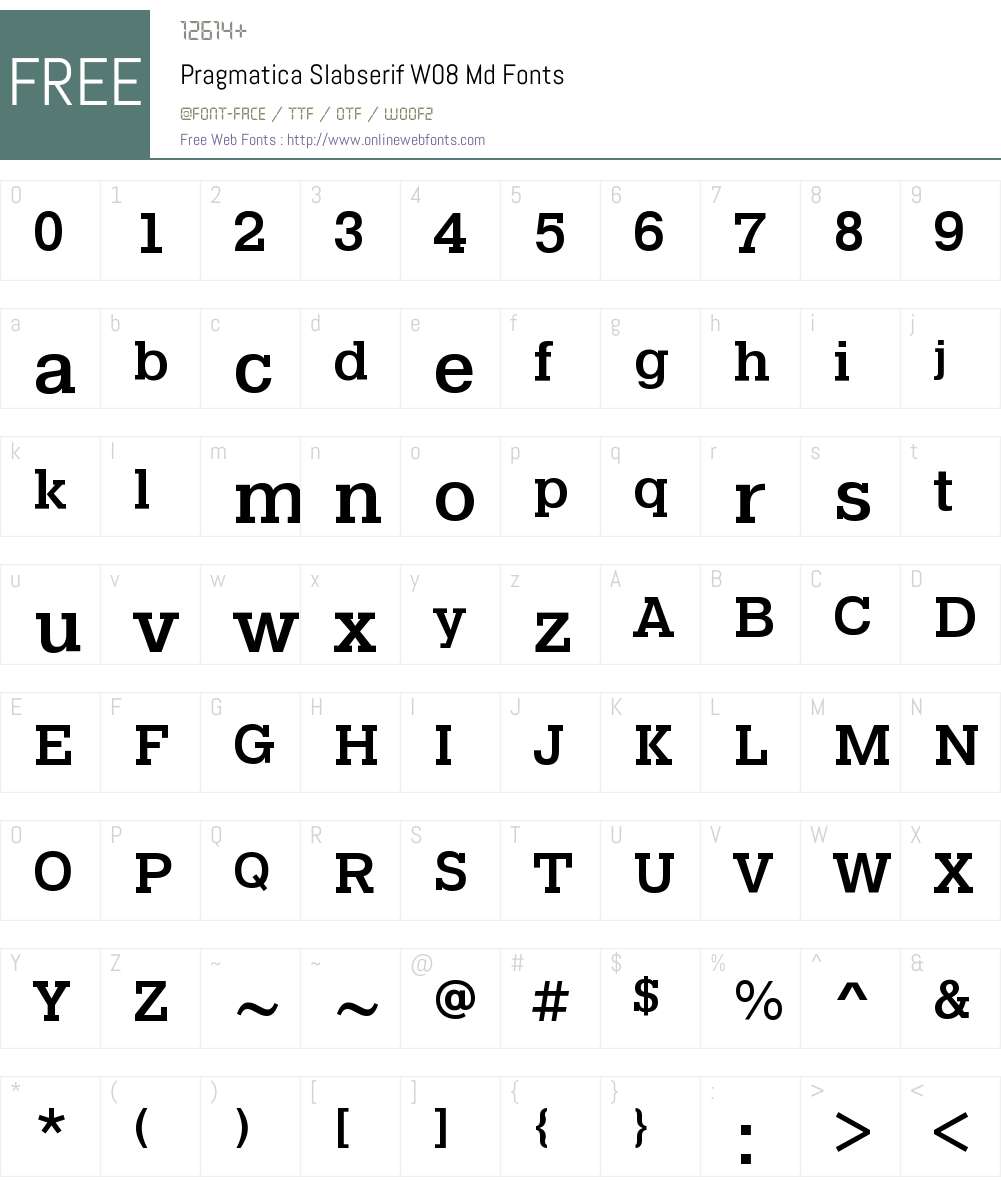
In all formats (pragmatica slab woff2, pragmatica slab woff, pragmatica slab ttf, pragmatica slab eot). Pragmatica slab font family pragmatica slabserif was designed as a complement to the popular type family pragmatica by vladimir yefimov and isabella chaeva inspired by helserif (phil martin, 1978) which was formed in the same way by addition of square serifs to helvetica (eduard hoffman. In all formats (pragmatica slab woff2, pragmatica slab woff, pragmatica slab ttf, pragmatica slab eot). Download the best free serif fonts that are hand picked collections by our editorial experts and can be used on mac, pc, website. If you recognize the font from the samples posted here don't be shy and help a fellow designer. Enter you text or numbers into a panel below. If you want to add to your 💛favorites. Every font is free to download! Test pragmatica slabserif font family now use this extremely handy tool to test the font appearance for free. Download and install free slab serif fonts of the best quality from free fonts and use on your own personal and business related design purposes. Making our services better everyday. Imsi masterfonts is a font creating organization took the charge for designing it for the. Free download pragmatica slab for macos, windows, sketch, figma, photoshop and web site. Pragmatica slab includes 12 opentype features including lining figures and standard ligatures making. Download 3 formats oet, ttf, woff. Thousands of designers (famous or not) use the image font detection system to find a font or similar free fonts. As well, you are going to love our website and what we can provide. Fontsfree.pro » basic web fonts » slab serif fonts » pragmatica slab. None serif basic font family pragmatica slab font pragmatica slab font family. Font, grotesque, roman, serif suited to your project, and it does not matter whether it is a printed poster or picture monitor. Home basic serif pragmatica slab. Months (1) montic script font (1) moonbringht script font (1) motocross academy (9) must download (35) my (1) my collection (8) best free office suite (0) my faves (2) my font (1) my fonts (7) my fonts (1) my logo (4) myclct (7) myfonts (3) mystery. To use this font on your website, use the following css: Pragmatica slab is a six font, slab serif family by paratype. Download free slab serif fonts for commercial and personal use. We are introducing another slab serif typeface the marlboro font. Add in the stylesheet file: $ free > personal use. Explore pragmatica slabserif designed by olga umpeleva, vladimir andrich, vladimir yefimov at adobe fonts. Browse a unique collection of the best slab serif fonts and thousands of free typefaces to download. As soon as you enter your details below you.
Pragmatica slab font family pragmatica slabserif was designed as a complement to the popular type family pragmatica by vladimir yefimov and isabella chaeva inspired by helserif (phil martin, 1978) which was formed in the same way by addition of square serifs to helvetica (eduard hoffman.